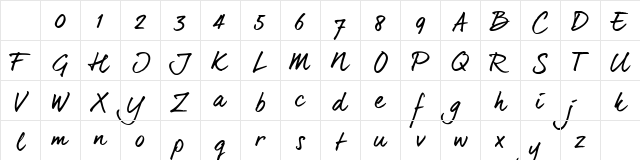
Complete dearJoe 6 TRIAL Regular glyph index. Displaying only characters natively supported by dearJoe 6 TRIAL Regular font.
dearJoe 6 TRIAL is a composed and adaptable typeface that performs quietly and consistently across a wide range of design contexts.